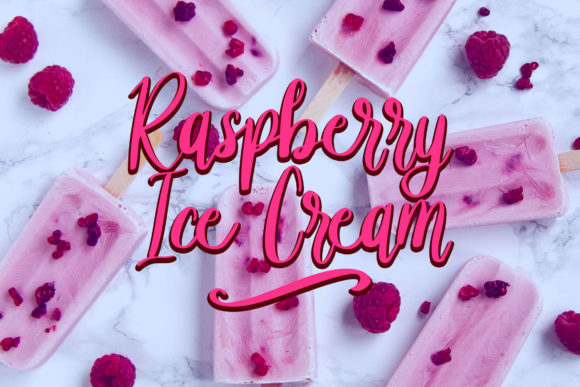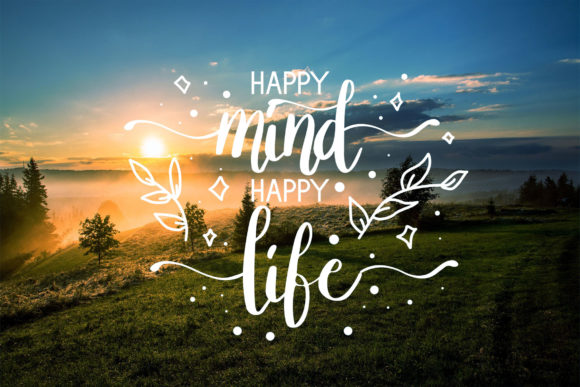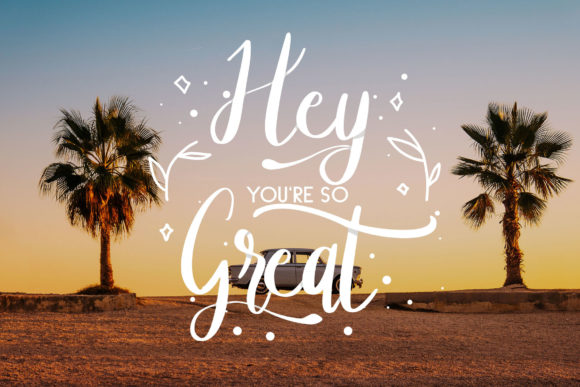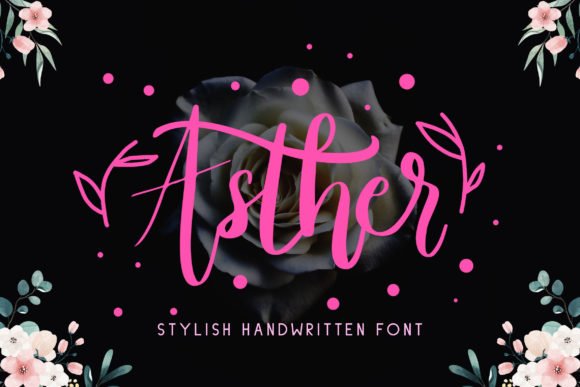
Introduction to Asther Font
Asther is a well-balanced and cursive script font.
It has many purposes and it is suitable for signature logos, badges, fashion, luxury, invitation, wedding event, modern, classic modern, advertising and much more .